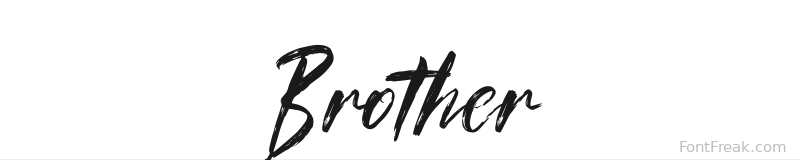
Brother
Introducing the Brother font by Perspectype Studio, a striking handwritten typeface that effortlessly blends elegance with an inviting, personal touch. Designed in 2021, this font falls into the script category, showcasing a unique style that captures the essence of casual, artistic expression. The visual characteristics of the Brother font include a dynamic stroke weight that varies throughout the characters, lending a sense of fluidity and movement. The brush-like strokes exhibit a moderate contrast, creating an eye-catching appeal, while the thoughtful spacing ensures legibility without sacrificing its artistic flair.
The Brother font is ideal for a variety of design projects. It works beautifully for wedding invitations, where its personal touch can convey warmth and intimacy. Additionally, it shines in creative branding for small businesses, such as artisanal cafes or boutiques, where a friendly yet sophisticated atmosphere is desired. Movie posters can benefit from its expressive style, helping to evoke emotion and draw in potential audiences. Furthermore, restaurant menus can utilize this font to create an inviting ambiance, enhancing the overall dining experience.
Targeted towards graphic designers, small business owners, and content creators, the Brother font offers versatility that appeals to a wide range of creative professionals. Its unique characteristics make it a valuable addition to any designer's toolkit, enabling them to convey messages with authenticity and style.
What truly sets the Brother font apart is its ability to evoke emotion while remaining highly functional. Its blend of artistry and accessibility makes it a standout choice for those seeking to make an impact in their designs. Don't miss your chance to elevate your projects with this delightful typeface; Brother font free download is available for those ready to unleash their creativity.